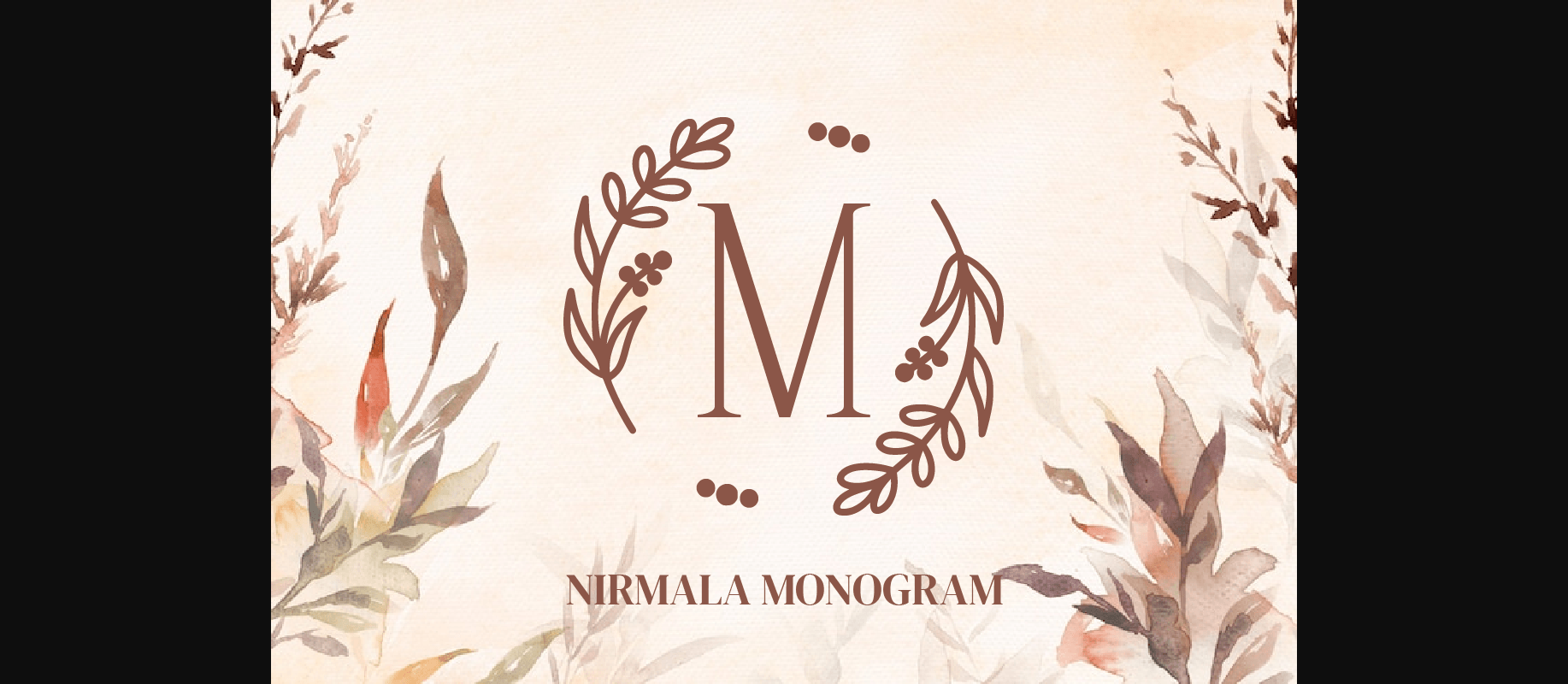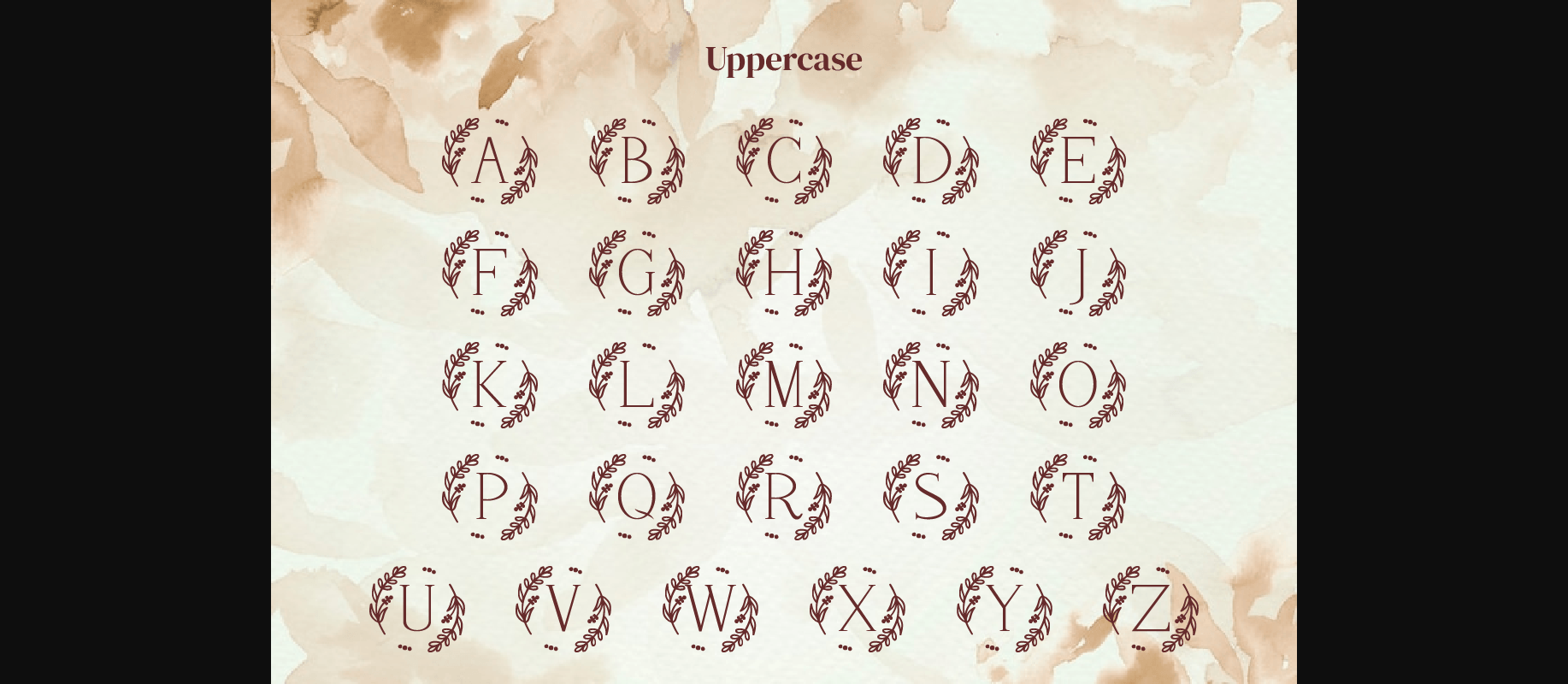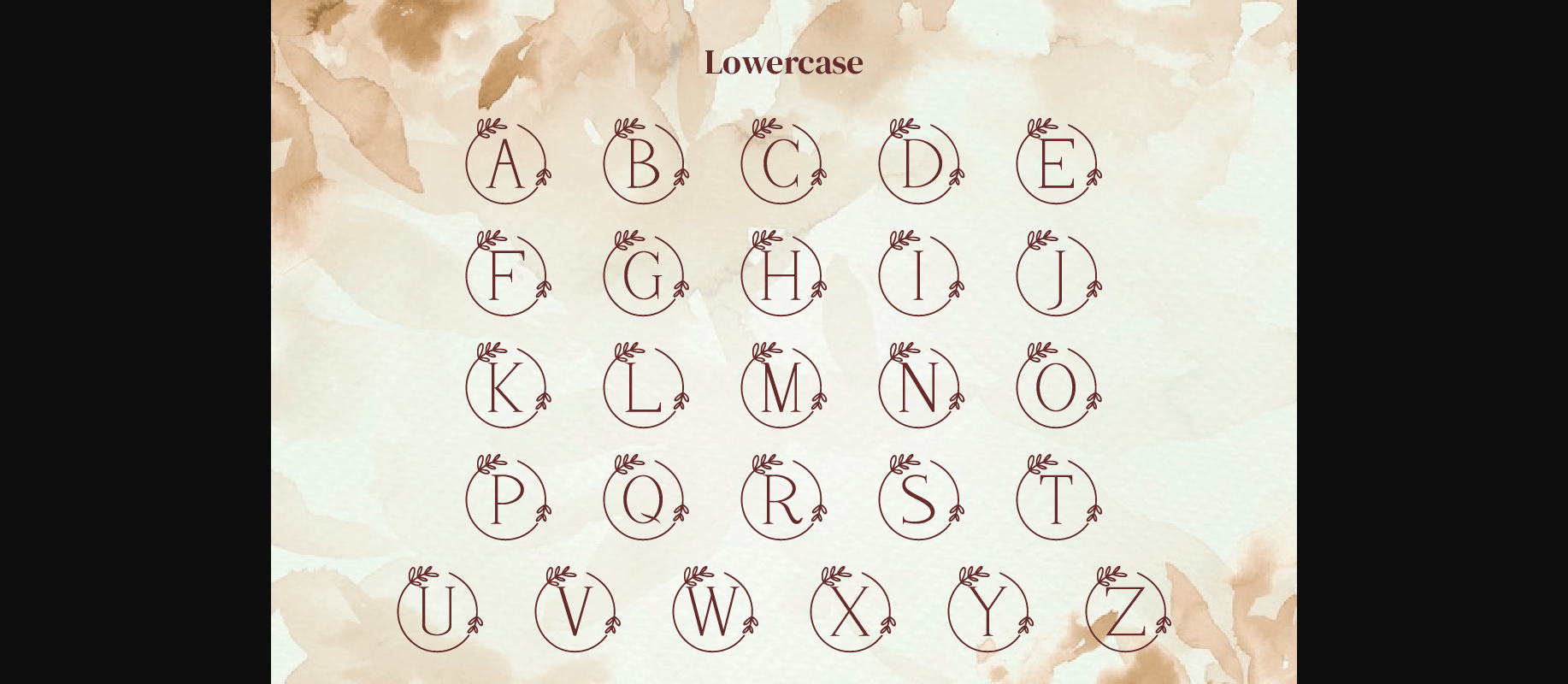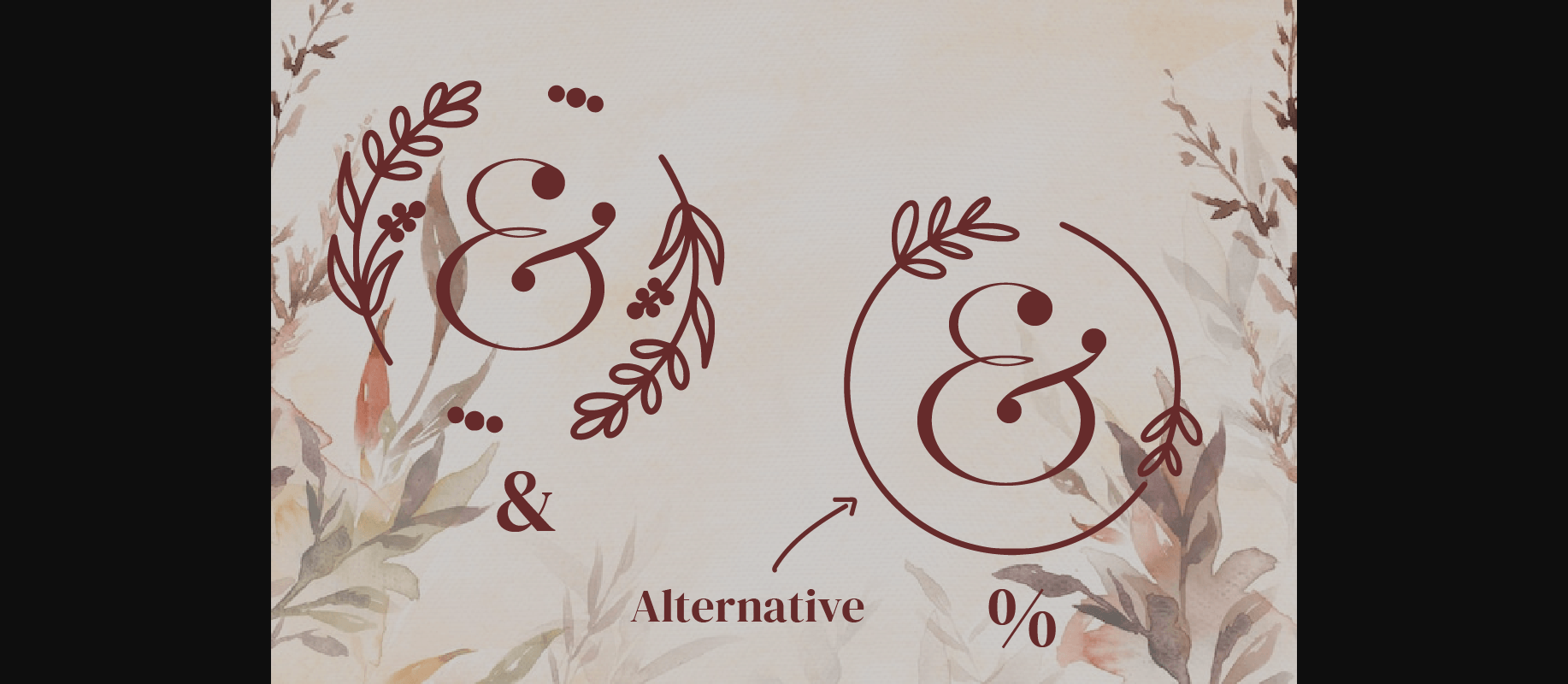
HomeDecorative FontsNirmala Font Decorative Fonts Nirmala Font FacebookXPinterestWhatsApp 1 of 6 ... Nirmala Font Poster 2... Nirmala Font Poster 3... Nirmala Font Poster 4... Nirmala Font Poster 5... Nirmala Font Poster 6... About Nirmala Font Nirmala is a cute monogram decorative font. Fall in love with its authentic feel and use it to create gorgeous wedding invitations, beautiful stationary art, engaging social media posts, and cute greeting cards. DOWNLOAD NOW People also explored Plywood Satellite Garanx Font Flower Dream Font The Vignature Font Cactuses Font Marsmello Font Mr Canfields Christina Font Sweet Janette Font 248 0 TagsNirmalaNirmala Font Previous articleMeriposa FontNext articleGymno Calycium Font LEAVE A REPLY Cancel reply Comment: Please enter your comment! Name:* Please enter your name here Email:* You have entered an incorrect email address! Please enter your email address here Website: Save my name, email, and website in this browser for the next time I comment. Personal Use Free Equalizer Script Personal Use Free Read more about this font Historise Personal Use Free Read more about this font Little Things Duo Personal Use Free Read more about this font Special Day Personal Use Free Read more about this font BLOG Free Fonts Risk: Why Free Fonts Can Be Dangerous for Designers Free Fonts Risk: Why Free Fonts Can Be Dangerous for Designers Using free fonts is a common practice in web and graphic design. However, the... The 10 Best Handwriting Fonts to Add Personality to Your Designs Free vs Paid Fonts: Why Investing in Premium Fonts Is Worth It How to Cut Any Font on Cricut: Convert a Font to SVG (Free)